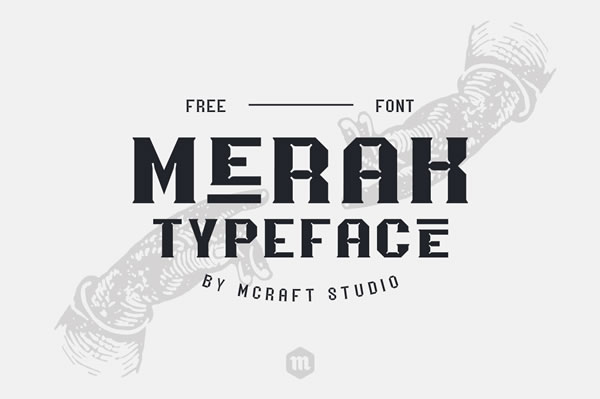
Prepare to be Mesmerized by Merak Font, a Typographic Journey into the Realm of Science Fiction and Industrial Charm
Step into a world where digital dreams meet tangible realities, where the font is not just a series of characters, but a portal to extraordinary storytelling. Merak Font, a groundbreaking creation by Headfonts, awaits you with its captivating fusion of futuristic and industrial aesthetics. With its bold lines and sleek contours, this display font challenges the boundaries of imagination, effortlessly blending the allure of science fiction movies with the raw power of industrial designs.
Merak Font is a visual symphony, a conductor of emotions, a catalyst for creativity. Its characters dance across the screen, painting stories with every letter, shaping worlds with every word. Embrace the allure of this otherworldly font, and watch as your designs transcend the ordinary, reaching heights that were once thought impossible.
Beyond its aesthetic appeal, Merak Font is a font of versatility. Its adaptable nature allows it to seamlessly blend into diverse contexts, from the sleek, minimalist designs of corporate presentations to the whimsical, playful allure of personal blogs. Unleash your imagination and witness the transformation of plain text into captivating narratives. Captivating and Engaging: Ignite Your Designs with Merak Font
Unleash the power of storytelling with Merak Font, a font that captivates and engages audiences with its inherent charm. Each letterform is meticulously crafted to evoke emotions, to create a visceral connection between the reader and the text. Let your words dance across the page, leaving an indelible mark on the hearts and minds of your audience.
Incorporate Merak Font into your designs and watch as they come alive with a new sense of purpose and personality. Whether you're crafting logos, branding materials, or eye-catching advertisements, Merak Font will elevate your message, making it impossible to ignore. Join the ranks of those who have discovered the allure of Merak Font and elevate your designs beyond the mundane.